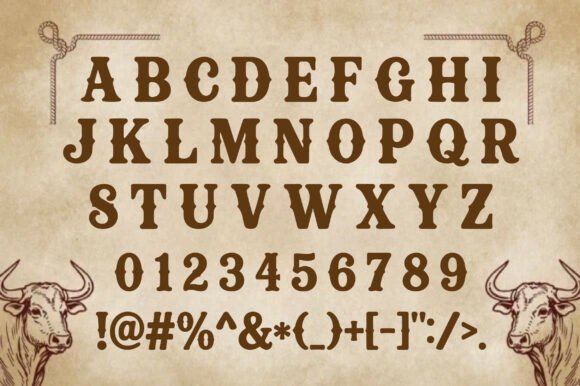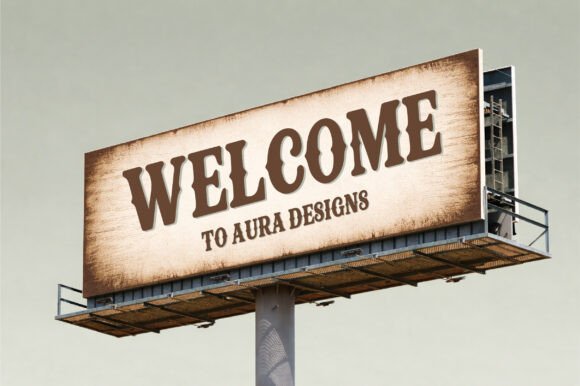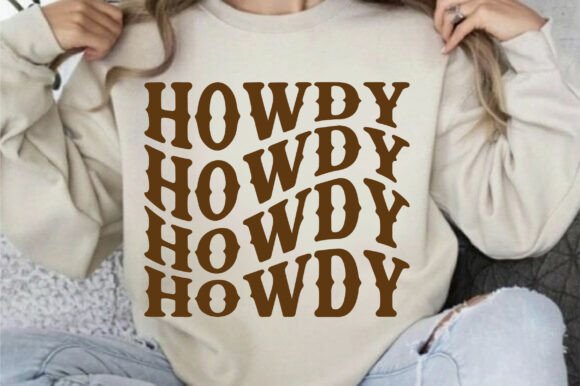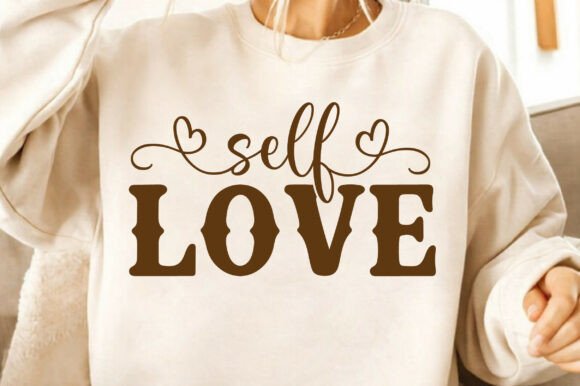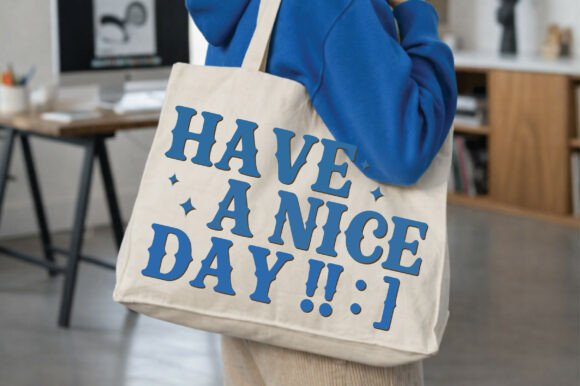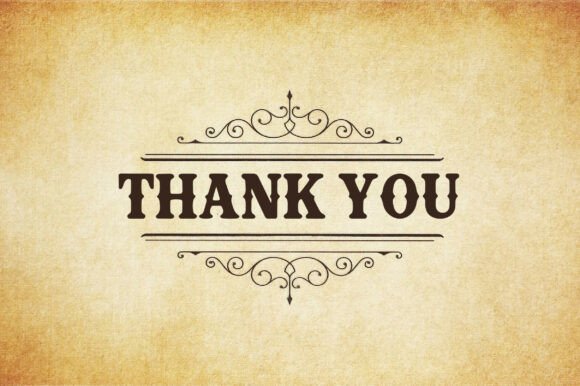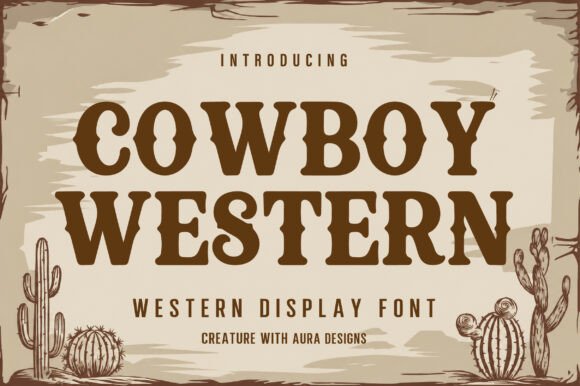
Cowboy Western Font: Saddle Up for a Wild West Typography Adventure
Are you ready to add a touch of rugged charm to your designs? Look no further than the Cowboy Western font, a bold vintage display font that embodies the spirit of the Wild West. Inspired by classic saloon signs, wanted posters, and old western branding, this all-caps typeface is perfect for designers and crafters who want to create bold, attention-grabbing graphics with a timeless cowboy aesthetic.
The Characteristics of Cowboy Western Font
Cowboy Western font boasts strong slab serifs, thick decorative letterforms, and authentic frontier-style detailing, giving it a powerful presence and masculine character. Its clean yet rugged western style blends nostalgic frontier typography with modern versatility, making it ideal for a wide range of design applications.
The font’s bold block structure, distinctive curves, and decorative spurs create an unmistakable old-timey look that’s perfect for:
- Saloon signage and bar branding
- Barbecue restaurant branding and menu design
- Rustic apparel and textile design
- Country music artwork and album covers
- Retro posters and flyers
- Outdoor product packaging and labeling
Designing with Cowboy Western Font
Whether you’re creating vintage logos, western-themed titles, badges, labels, merchandise, or standout promotional graphics, Cowboy Western font delivers a commanding Wild West feel that’s sure to captivate your audience. Its all-caps design ensures that your message will be loud and clear, while its bold and decorative letterforms add a touch of rugged sophistication.
Here are some design tips to help you make the most of Cowboy Western font:
- Use it as a statement piece: Cowboy Western font is designed to grab attention, so use it as a statement piece to draw your audience in.
- Pair it with contrasting fonts: Pair Cowboy Western font with contrasting fonts to create visual interest and add depth to your design.
- Experiment with colors: Try pairing Cowboy Western font with bold, bright colors to create a truly eye-catching design.
- Keep it simple: Don’t be afraid to keep your design simple and clean. Cowboy Western font is bold and attention-grabbing, so let it speak for itself.
The Benefits of Using Cowboy Western Font
Cowboy Western font offers a range of benefits for designers and crafters, including:
- Instant recognition: Cowboy Western font is instantly recognizable as a Wild West-inspired typeface, evoking the spirit of the American frontier.
- Bold and attention-grabbing: Cowboy Western font is designed to grab attention, making it perfect for designs that demand bold presence.
- Versatile: Cowboy Western font can be used for a wide range of design applications, from saloon signage to country music artwork.
- Easy to read: Despite its bold and decorative design, Cowboy Western font is easy to read, even at small sizes.
If you’re looking for a font that captures the spirit of the Wild West, look no further than Cowboy Western font. With its bold and rugged design, this all-caps typeface is perfect for designers and crafters who want to add a touch of cowboy charm to their designs. Whether you’re creating vintage logos, western-themed titles, or standout promotional graphics, Cowboy Western font delivers a commanding Wild West feel that’s sure to captivate your audience.